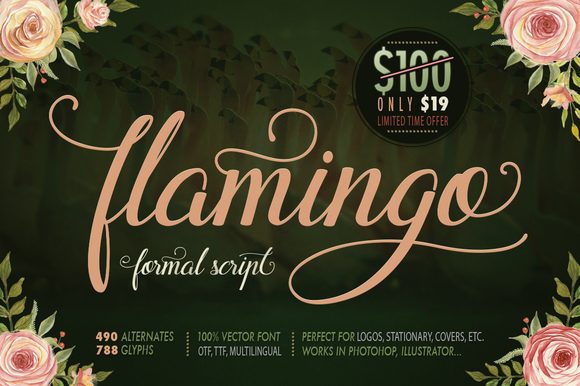
Flamingo Font: Handcrafted Script for Makers
As a small business owner and product creator, I know that typography is often the difference between a design that looks homemade and one that looks professionally crafted. When we are designing physical products or digital downloads, the font carries the emotional weight of the brand. Flamingo is a beautiful handcrafted font that bridges the gap between authentic handwriting and polished commercial typography. Filled with over 780 high-quality unique glyphs, this typeface offers the kind of organic variation that customers associate with premium, bespoke goods. For those of us in the Script Amp category looking for versatility, having access to 12 to 20 alternates per letter means no two product labels or invitations ever have to look identical.
Elevating Physical Products and Packaging
In the world of handmade selling, packaging is part of the product experience. Whether you are creating candle labels, boutique clothing tags, or artisan soap wrappers, readability must coexist with charm. Flamingo excels here because its baseline variations mimic natural penmanship without sacrificing legibility at smaller sizes. When designing product packaging, the goal is to create a visual hierarchy where the product name stands out while remaining easy to read on a store shelf or in a photograph.
For example, if you are designing a line of luxury bath salts, using the standard characters might feel too uniform. By utilizing the extensive alternate glyphs in Flamingo, you can customize the "S" in "Salts" or the "L" in "Lavender" to include subtle swashes that frame the text. This level of detail signals to the customer that care was taken in every aspect of the creation process. The font’s inherent warmth makes it particularly effective for farmhouse signs, wooden decor, and textile printing where a rigid digital font would feel out of place against natural materials.
Practical Applications for Crafters and Sellers
Versatility is essential when managing a shop with diverse inventory. Flamingo serves as a reliable workhorse for various creative projects beyond just packaging:
Mastering Alternates for Custom Lettering
The true power of Flamingo lies in its massive glyph collection. With around 12 to 20 alternates for each letter, this font essentially functions as a custom lettering toolkit. For crafters using software like Illustrator, Canva, or specialized font tools, this allows for manual kerning and styling adjustments that prevent the "computer-generated" look. When designing a logo or a signature brand mark, you can cycle through these alternates to find the exact ligature or swash that balances your composition perfectly.
This feature is also invaluable for avoiding repetition in longer phrases. If you are creating a set of motivational stickers or a series of printable affirmation cards, using the same default "a" or "e" repeatedly can make the design feel static. By strategically swapping in different alternates, you maintain the rhythmic flow of real handwriting. This attention to typographic nuance increases the perceived value of digital downloads and templates, as buyers recognize the professional effort involved in the layout.
Readability and Cutting Machine Considerations
While beauty is paramount, functionality dictates success in production. For Cricut and Silhouette users, intricate scripts can sometimes be problematic when cut from vinyl or cardstock. Flamingo strikes a practical balance; its strokes are substantial enough to weed easily, yet delicate enough to retain a feminine, handcrafted aesthetic. When preparing files for cutting machines, always test the smallest size you intend to use. While the font is robust, extremely small text on curved surfaces like mugs or tumblers may require simplifying the alternates to ensure clean adhesion.
For printed items like business cards or hang tags, ensure there is adequate contrast between the Flamingo script and the background color. Because this is an expressive typeface, it performs best when given room to breathe. Avoid crowding the text with heavy graphics or borders. Letting the negative space interact with the swashes enhances the modern typography feel and ensures the message remains the focal point.
Strategic Font Pairing for Brand Identity
A single font rarely works in isolation. To build a cohesive brand identity, Flamingo pairs exceptionally well with cleaner, more structured typefaces. As a primary display font, it demands a supporting actor that grounds the design. Pairing this expressive script with a minimalist sans serif font creates a contemporary, high-end look suitable for modern boutiques and tech-forward creatives. Conversely, combining it with a classic serif font evokes tradition and heritage, which is ideal for vintage-inspired sellers or historical reproduction items.
When designing templates for resale, consider pre-pairing Flamingo with a versatile body font. This saves your customers time and ensures they achieve a professional result immediately. For instance, use Flamingo for the header "Happy Birthday" on an invitation template, paired with a simple geometric sans serif for the date, time, and location details. This contrast not only improves readability but also guides the viewer’s eye through the information hierarchy effectively. Remember that good font pairing is about balance; let Flamingo be the star while the secondary font handles the logistical heavy lifting.